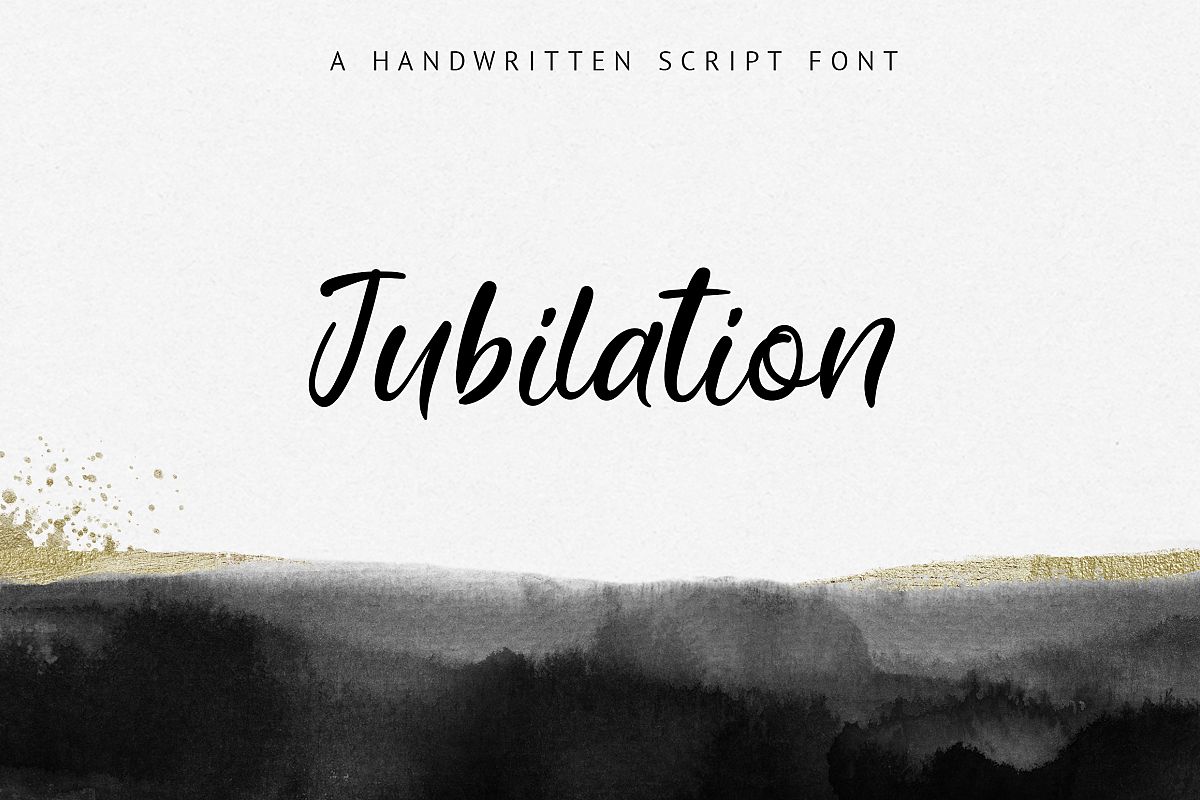
Jubilation
I’m pleased to introduce my new handwritten font Jubilation.
This font includes ligatures and full set of lowercase and numbers alternates to make your text more realistic.
It is perfect for branding, logo, wedding invites and cards, headings, signatures, product packaging, quotes, greeting cards, logos, overlays, instagram post and much more.